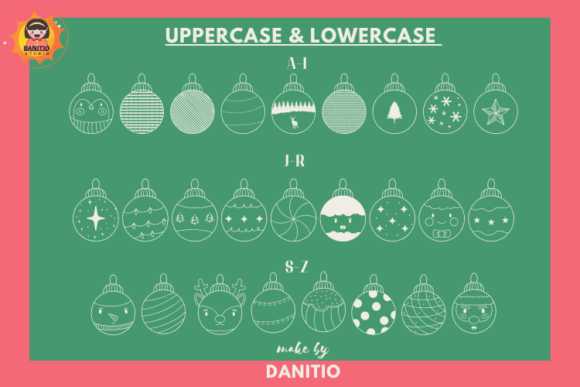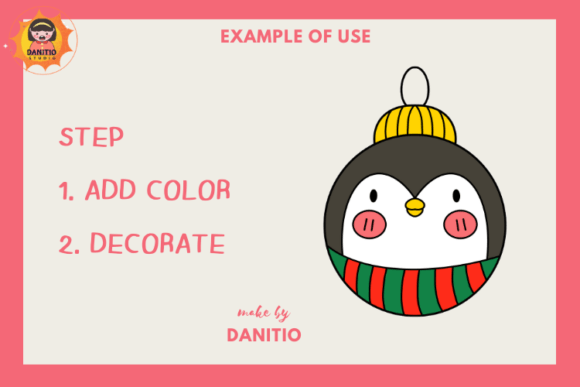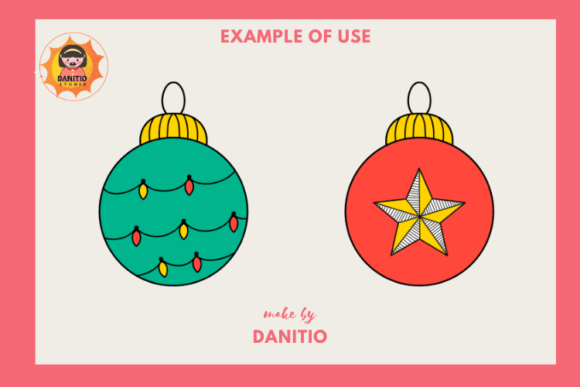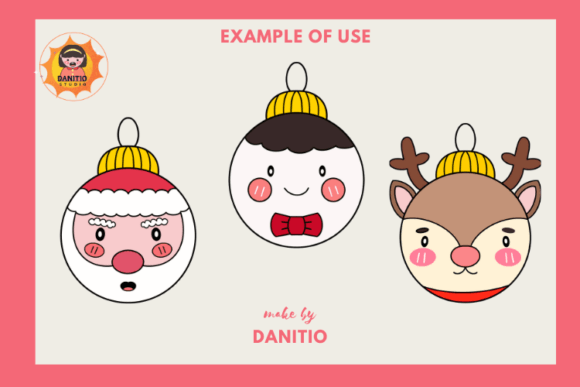
Deck the Halls with Christmas Ornament Font: A Festive Collection of Dingbats
As the holiday season approaches, designers and crafters are on the lookout for unique and festive elements to add a touch of magic to their projects. Look no further than the Christmas Ornament Font, a beautiful collection of dingbats that will bring joy and cheer to your designs. In this article, we’ll dive into the world of Christmas Ornament Dingbats and explore how you can use them to create stunning holiday-themed projects.
What are Christmas Ornament Dingbats?
Christmas Ornament Dingbats is a delightful collection of festive symbols and icons that capture the essence of the holiday season. This charming set includes a wide range of decorative elements, such as ornaments, stars, Santa Clauses, gifts, cakes, and more. These whimsical illustrations are perfect for adding a splash of holiday color to your designs, giving them a fun and quirky atmosphere that’s sure to delight.
The Perfect Addition to Your Christmas Projects
Whether you’re a designer, crafter, or DIY enthusiast, Christmas Ornament Dingbats are the perfect addition to your holiday projects. Use them to create stunning Christmas cards, invitations, and gift tags that will make your loved ones feel special. You can also incorporate them into your website designs, social media graphics, and marketing materials to get into the holiday spirit.
With Christmas Ornament Dingbats, the design possibilities are endless. Here are a few ideas to get you started:
- Create a festive holiday party invitation featuring Santa Claus, reindeer, and snowflakes.
- Design a set of Christmas cards with charming ornaments, stars, and gifts.
- Make a holiday-themed website header featuring a fun and colorful Christmas tree.
- Develop a social media campaign with festive graphics and animations.
Why Choose Christmas Ornament Dingbats?
So why choose Christmas Ornament Dingbats for your holiday projects? Here are just a few reasons:
- Unique and festive designs: Our dingbats are designed to bring a touch of holiday magic to your projects.
- Easily customizable: Use our dingbats to create custom designs that reflect your brand or personal style.
- Scalable: Our dingbats can be scaled up or down without losing quality, making them perfect for a range of applications.
Tips for Using Christmas Ornament Dingbats
Here are a few tips for using Christmas Ornament Dingbats in your designs:
- Mix and match: Combine different dingbats to create a unique and eye-catching design.
- Experiment with colors: Try out different color schemes to find the perfect combination for your project.
- Add text: Pair our dingbats with festive fonts and text to create a complete holiday design.
Christmas Ornament Dingbats are a beautiful and fun way to add a touch of holiday cheer to your designs. With their unique and festive designs, endless customization possibilities, and scalability, they’re perfect for designers, crafters, and DIY enthusiasts alike. So why wait? Spread the joy of the season with Christmas Ornament Dingbats and let your creativity shine during this joyous time of the year.
Get Creative with Christmas Ornament Dingbats